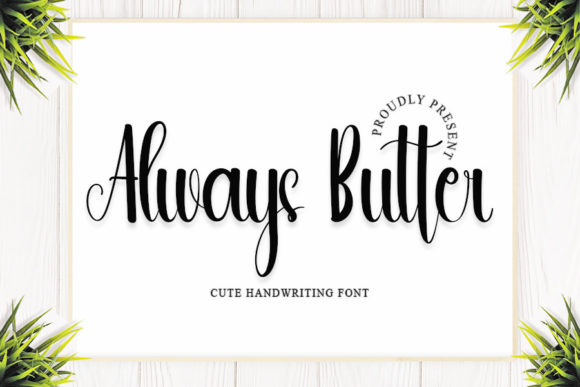
Step into the enchanting world of Always Butter, a script font that will effortlessly transform your words into captivating masterpieces. With its graceful curves and an effortlessly sophisticated flair, this font exudes a timeless elegance that will leave a lasting impression on your audience.
This exquisite font family is meticulously crafted to evoke the charm and romance of handwritten calligraphy, making it the perfect choice for adding a touch of personal flair to your wedding invitations, save-the-dates, and any other special occasion that calls for a touch of magic.
Always Butter is more than just a font; it's a gateway to expressing your individuality and style. Whether you're a seasoned designer or just starting your creative journey, this font will empower you to create designs that are uniquely yours, brimming with warmth, grace, and a timeless appeal.
So, dive into the world of Always Butter and let your imagination soar. With its unmatched beauty and versatility, this font will elevate your designs to new heights, leaving an unforgettable mark on every project you create. Embrace the allure of Always Butter and unlock the countless possibilities it holds.